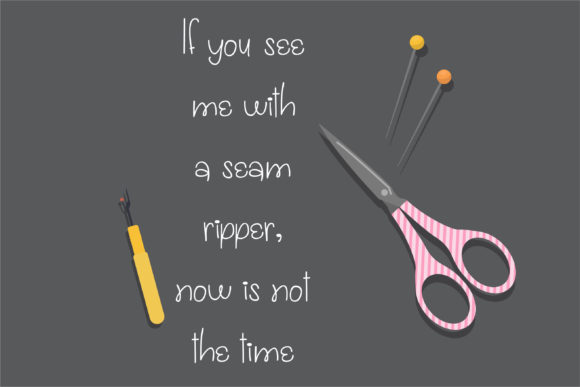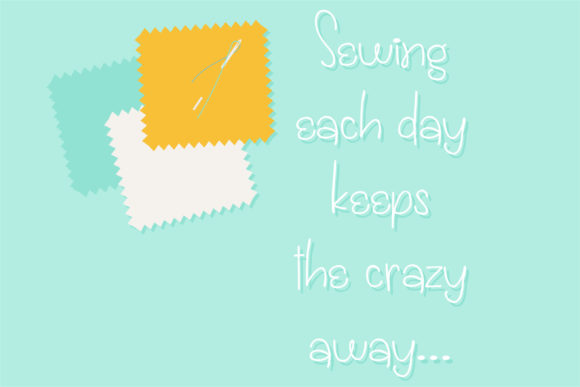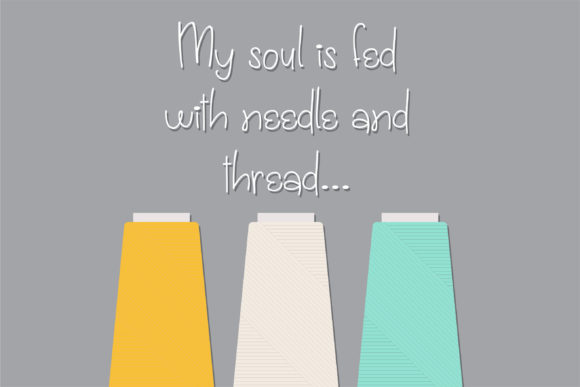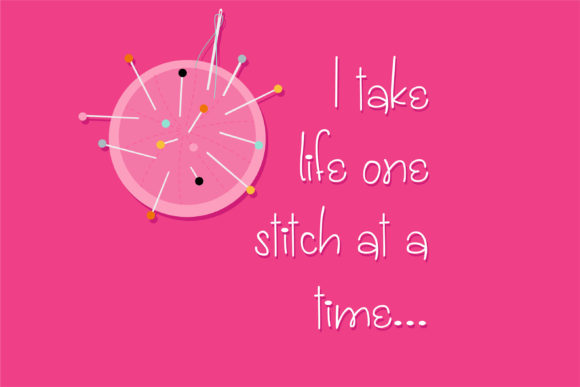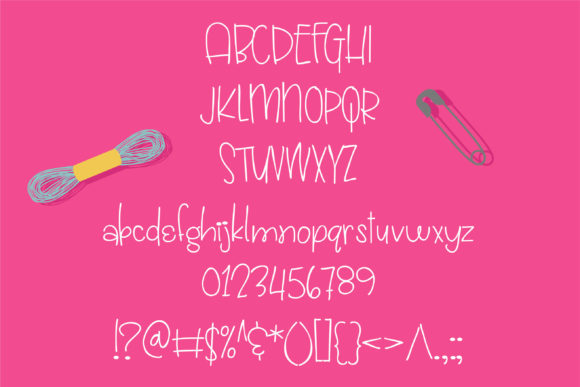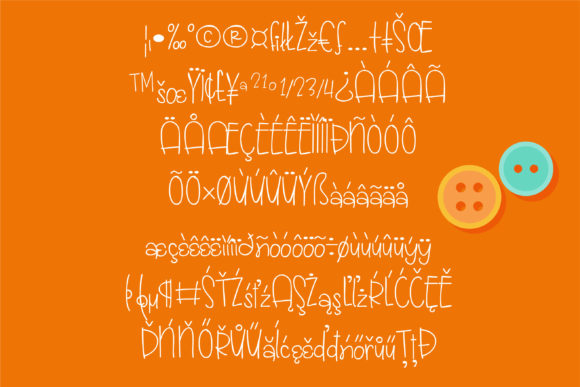
Introducing Buttondown Font: The Ultimate Choice for Whimsical and Innocent Designs
Are you a designer or crafter looking for a font that exudes innocence and playfulness? Look no further than Buttondown Font! This charming, simple, and thin lettered handwritten font is perfect for adding a touch of whimsy to your creations. With its lovely flow and childlike handwriting style, Buttondown Font is sure to capture the hearts of your audience.
The Inspiration Behind Buttondown Font
Buttondown Font is designed to resemble the handwriting of a child, making it an ideal choice for projects that require a playful and innocent touch. The font’s simplicity and thin lettering give it a delicate and charming appearance, reminiscent of a child’s scribbles. This unique style makes Buttondown Font perfect for a wide range of design projects, from letters to Santa to DIY craft labels.
Key Features of Buttondown Font
• Cute and Simple Design: Buttondown Font boasts a clean and straightforward design that is both visually appealing and easy to read.
• Thin Lettered Handwritten Style: The font’s thin lettering gives it a delicate and whimsical appearance, perfect for adding a touch of innocence to your designs.
• Lovely Flow: Buttondown Font features a smooth and flowing script that mimics the natural movement of handwriting.
• Childlike Handwriting Style: The font’s childlike handwriting style makes it perfect for projects that require a playful and innocent touch.
Use Cases for Buttondown Font
Buttondown Font is a versatile font that can be used in a wide range of design projects, including:
• Letters to Santa: Add a touch of innocence and whimsy to your child’s letters to Santa with Buttondown Font.
• DIY Craft Labels: Use Buttondown Font to create adorable labels for your DIY crafts, such as knitted items, homemade cookies, or handmade cards.
• Stationery and Invitations: Add a playful touch to your stationery and invitations with Buttondown Font.
• Children’s Book Illustrations: Buttondown Font is perfect for illustrating children’s books, adding a touch of innocence and playfulness to your story.
Tips for Using Buttondown Font
To get the most out of Buttondown Font, here are some tips to keep in mind:
• Pair with Bold Fonts: Pair Buttondown Font with bold fonts to create a striking contrast and add visual interest to your design.
• Use Pastel Colors: Use pastel colors to complement the innocent and playful style of Buttondown Font.
• Add Whimsical Elements: Add whimsical elements, such as illustrations or graphics, to enhance the playful style of Buttondown Font.
Buttondown Font is a charming and versatile font that is perfect for designers and crafters looking to add a touch of innocence and playfulness to their creations. With its lovely flow, childlike handwriting style, and thin lettered design, Buttondown Font is sure to capture the hearts of your audience. Whether you’re creating letters to Santa, DIY craft labels, or children’s book illustrations, Buttondown Font is the ultimate choice for whimsical and innocent designs.